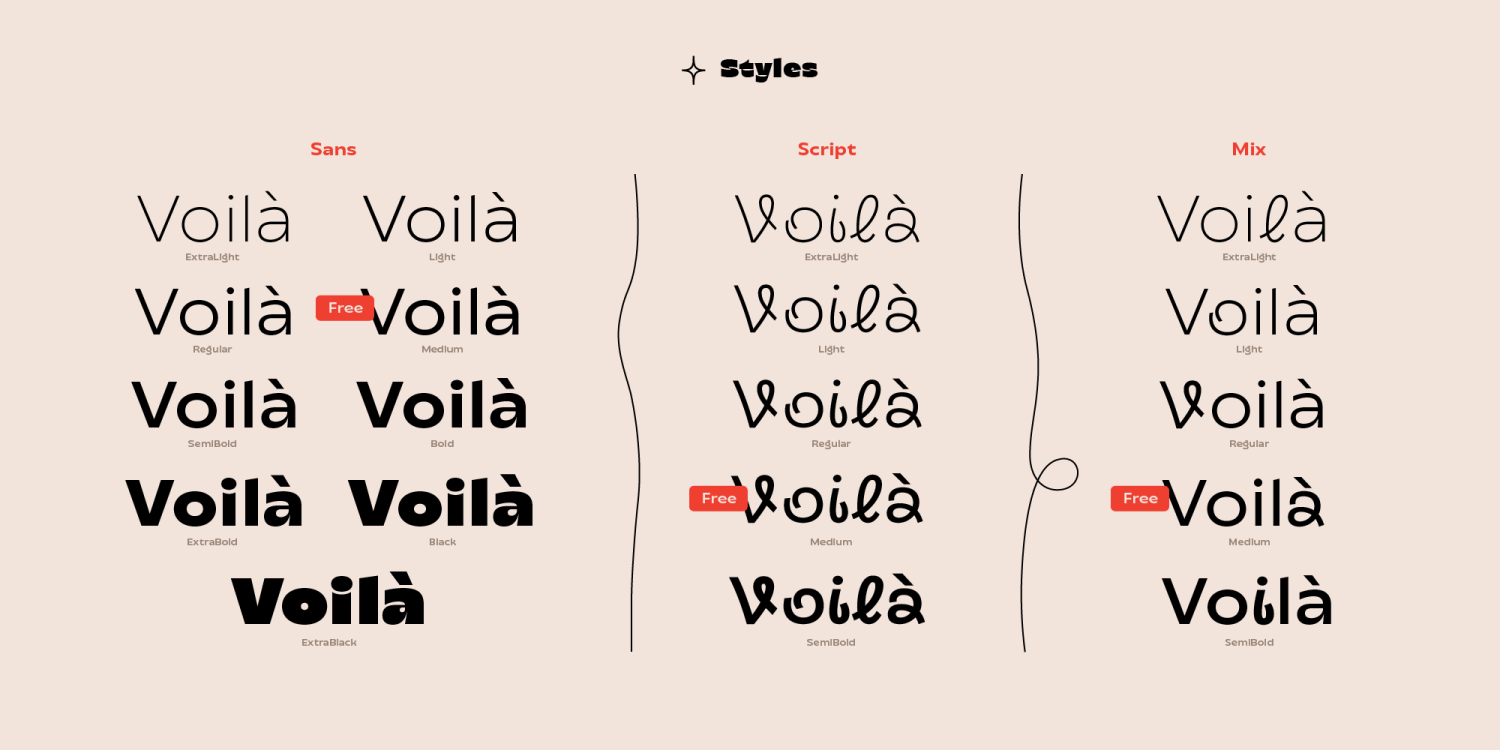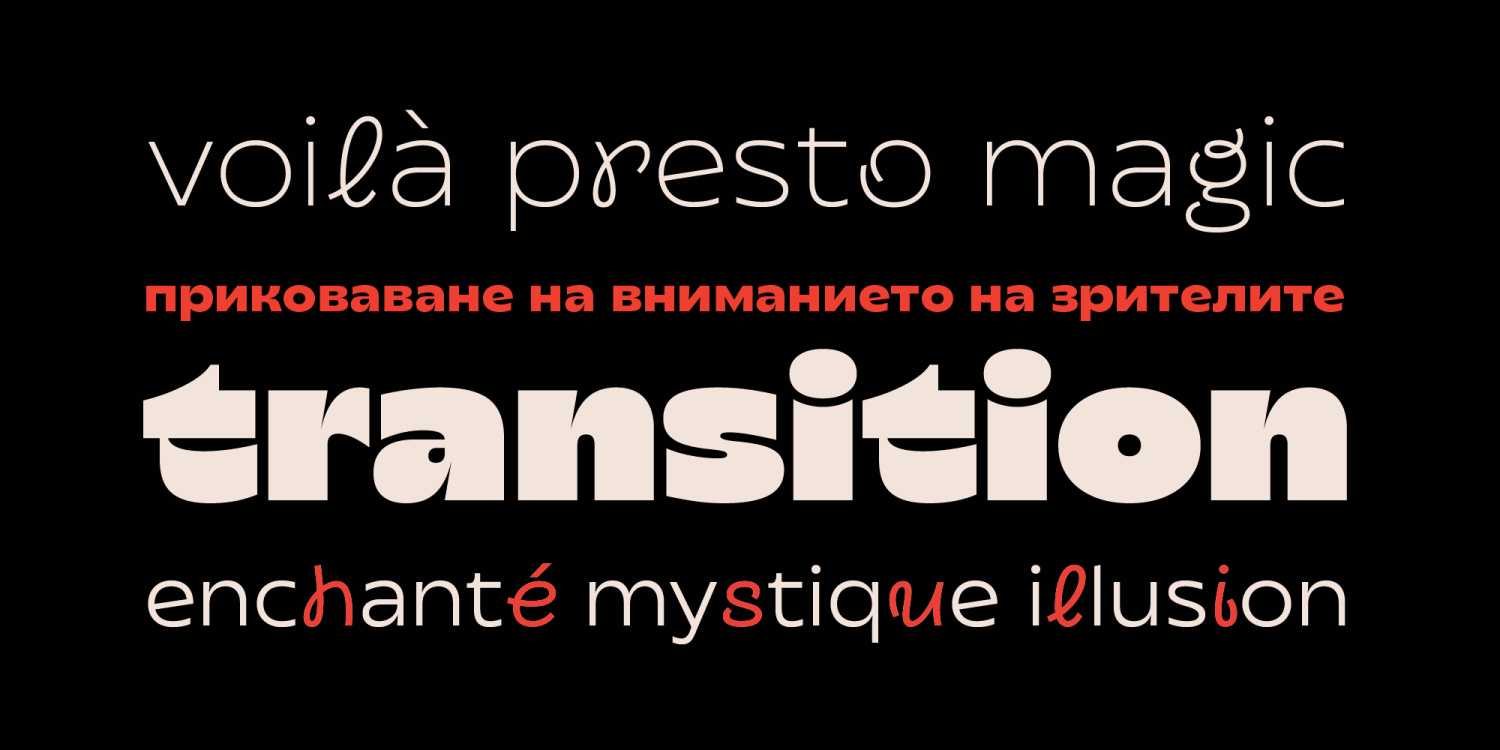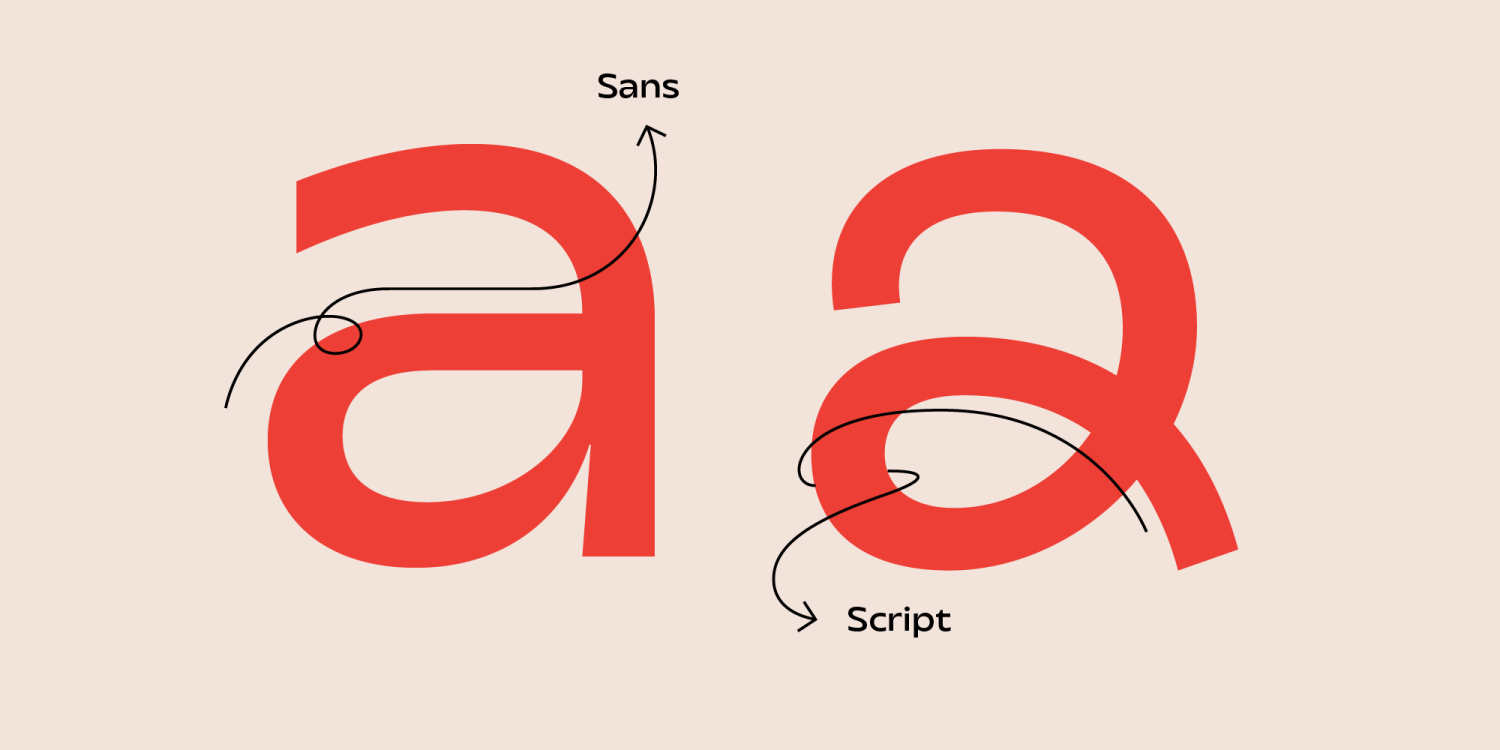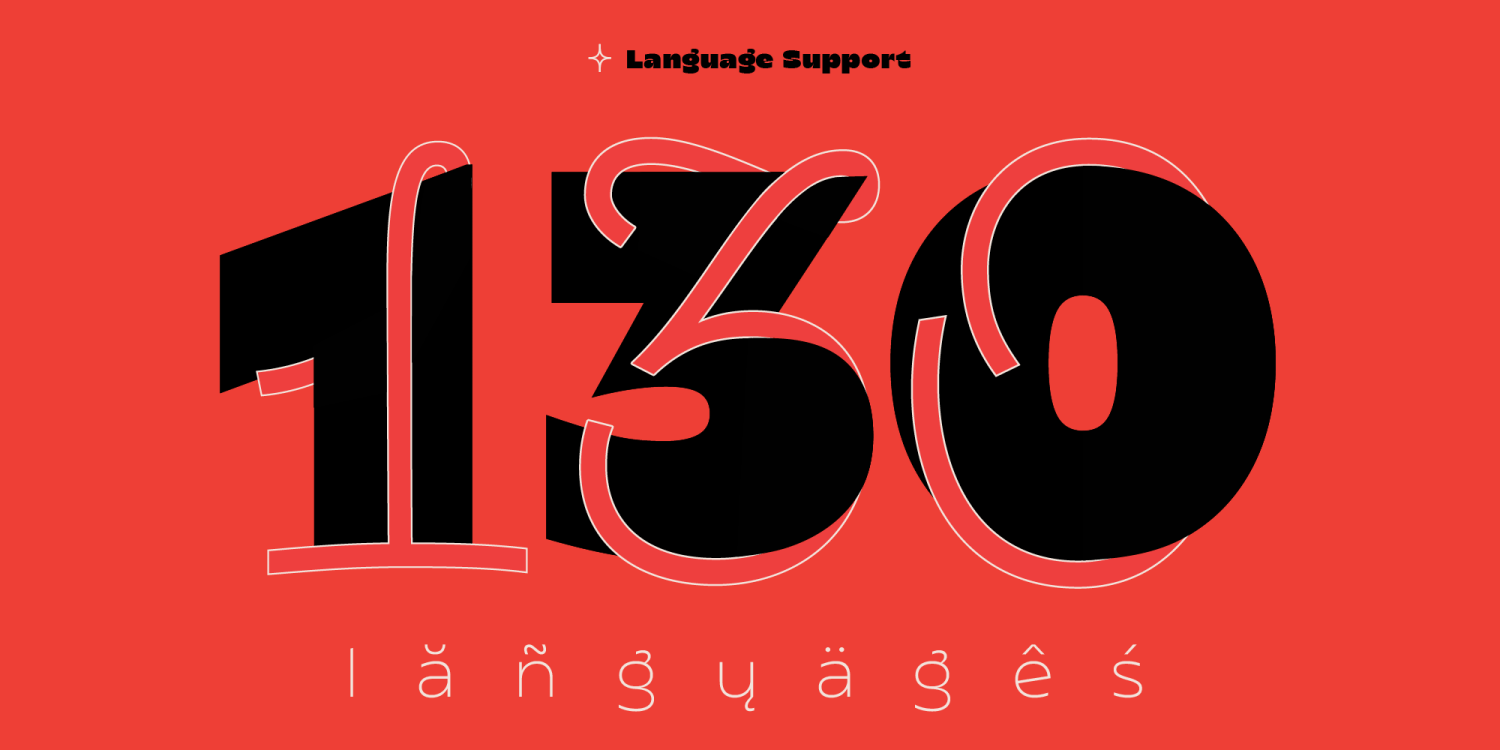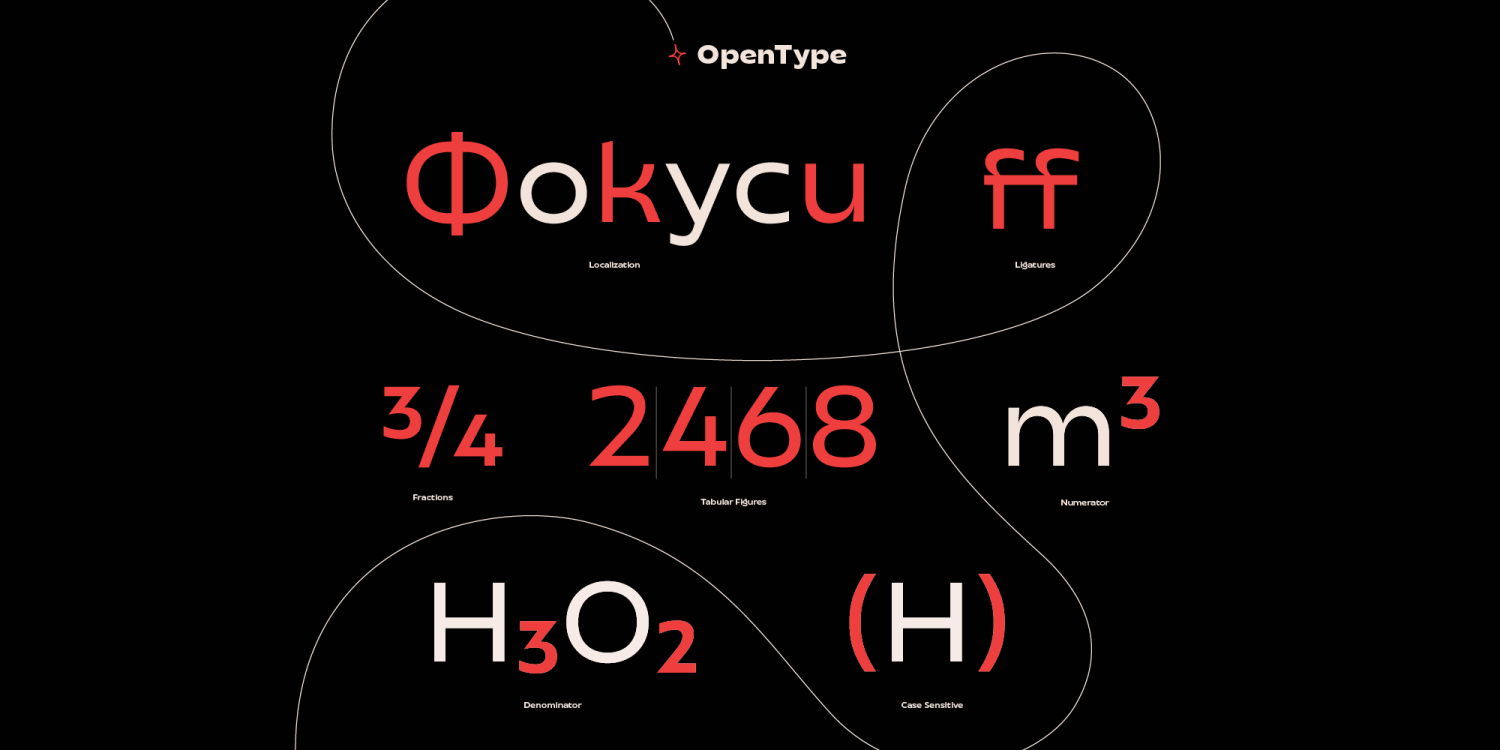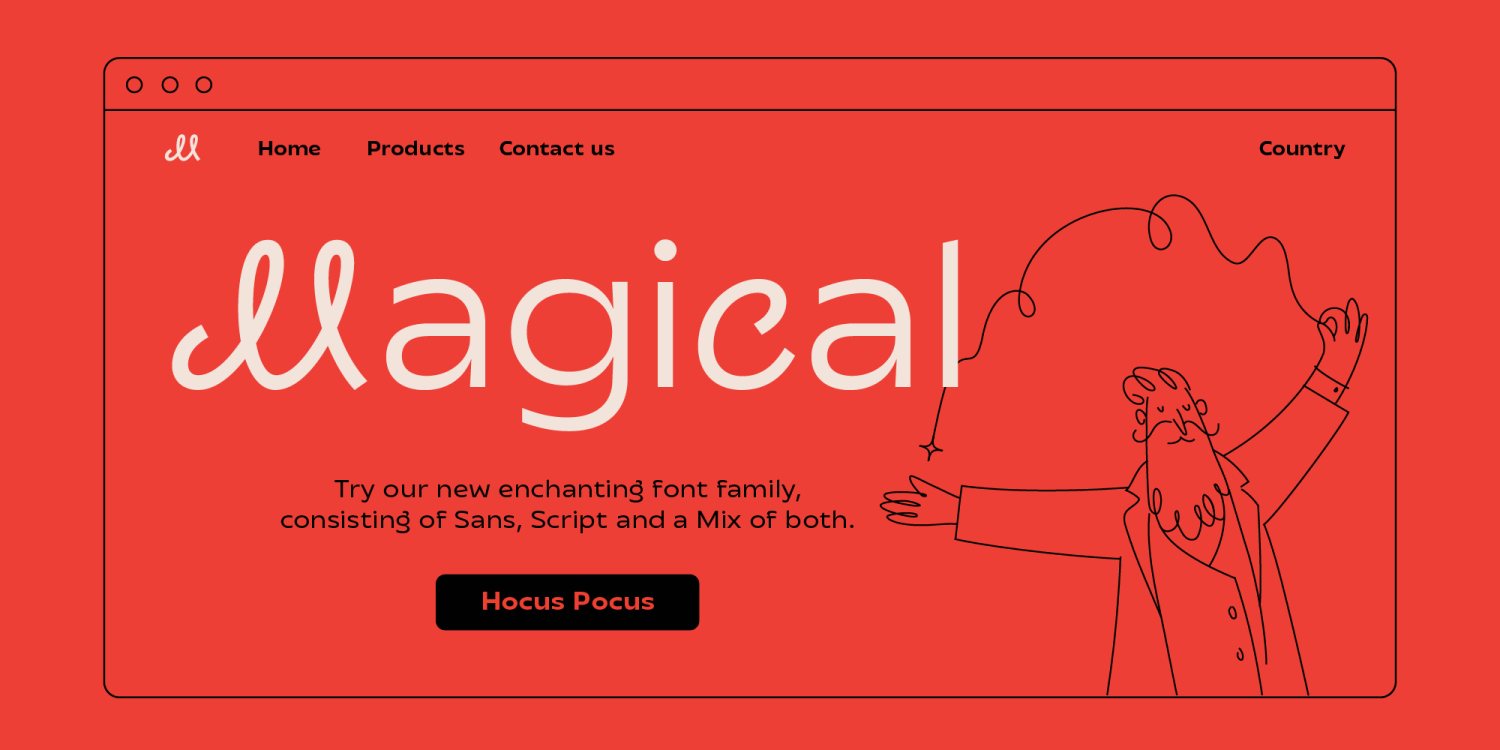
Transforma
Font Family by Fontfabric
Transforma is a captivating font family born from the creative vision of Fontfabric’s founder Svet, masterfully brought to life by Type Director Viktoria Usmanova and Senior Type Designer Ani Dimitrova. Designed around the concept of “where typography meets magic,” Transforma blends the sleek precision of a sans serif with the organic, fluid charm of a handmade script, culminating in a distinctive “Mix” subfamily that fuses the best of both worlds. The result? A type system that’s engaging, lively, and delightfully unconventional—perfect for making your designs truly memorable.
Why Choose Transforma?
Transforma is a typeface designed for projects that crave playfulness, dynamism, and a unique visual flair. Its transformative nature—offering Sans, Script, and Mix sub-families—makes it an excellent choice for designers who want to transition seamlessly between formal structure and organic expression. With clever ink traps, vertical cuts, and high-contrast weights (especially in ExtraBlack), Transforma delivers both legibility and personality. The Script styles offer smooth flow and authenticity, while the Mix brings creative freedom to the next level. With a total of 22 individual styles (including 3 variable fonts), advanced OpenType features, and multilingual support, Transforma ensures versatility and high-quality typography for every project. Download Transforma today!